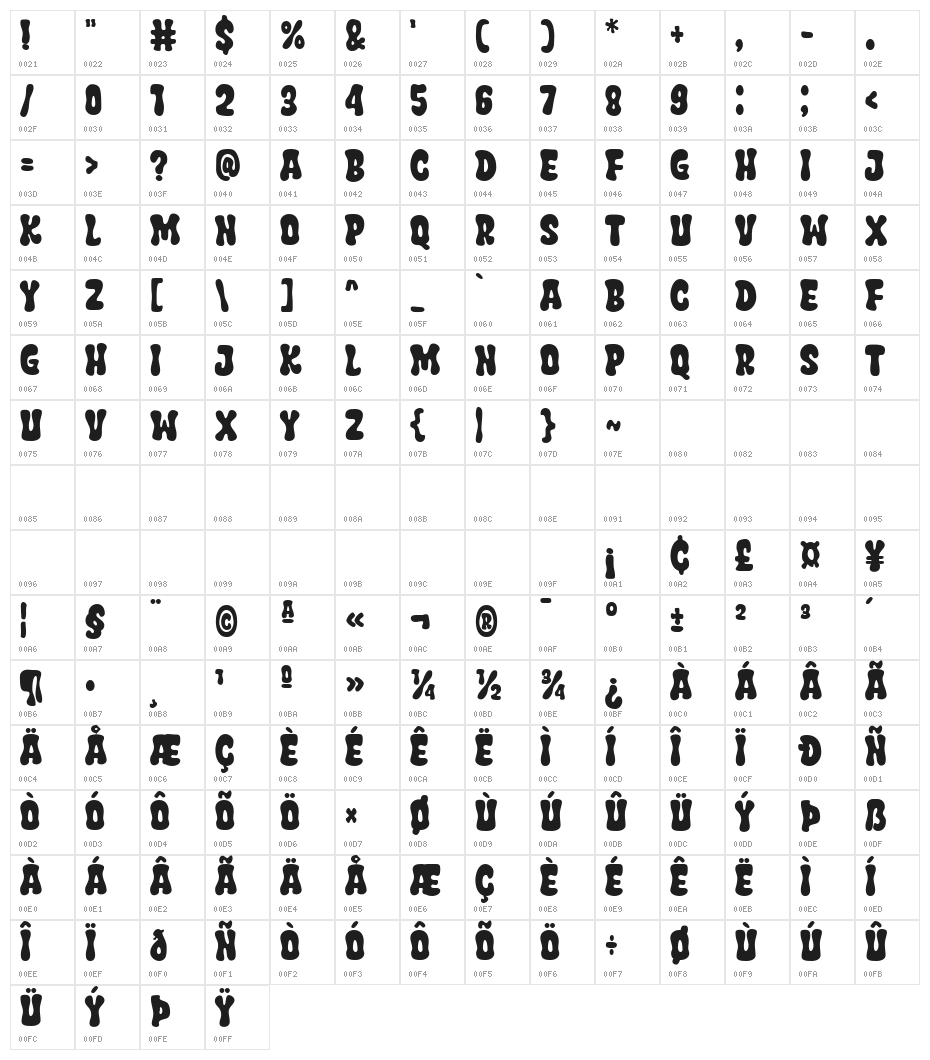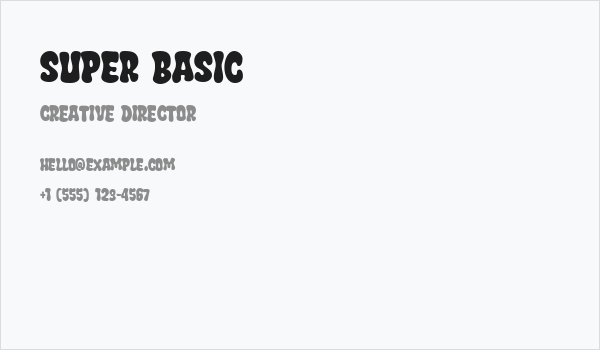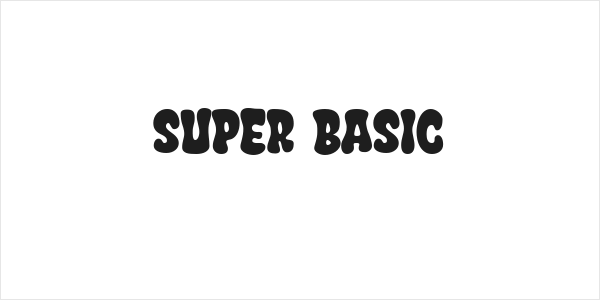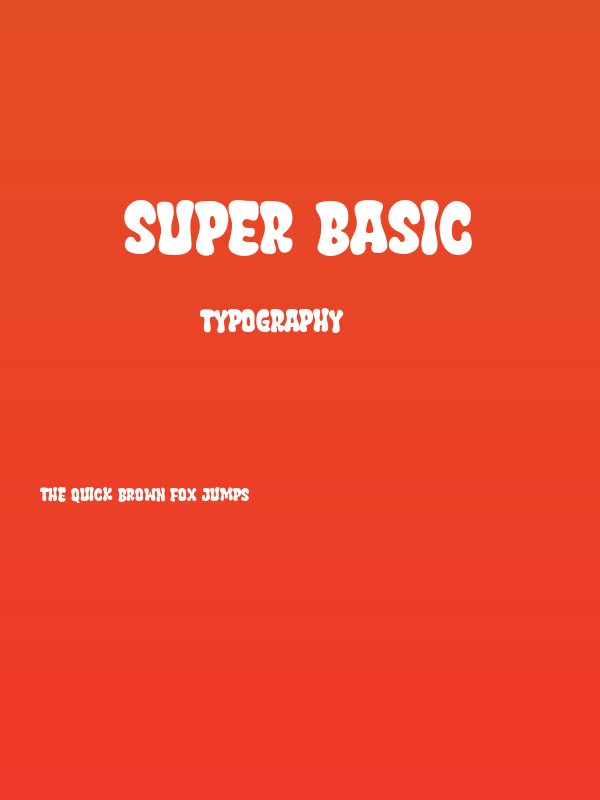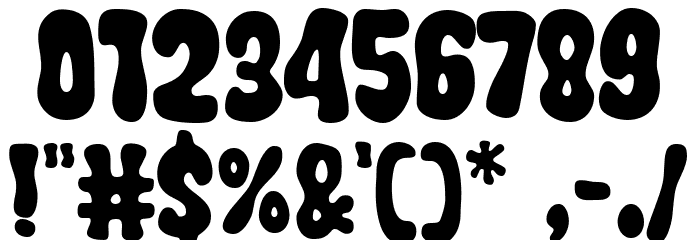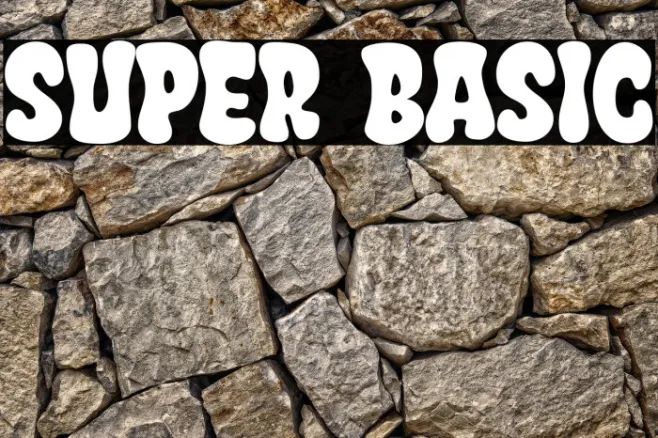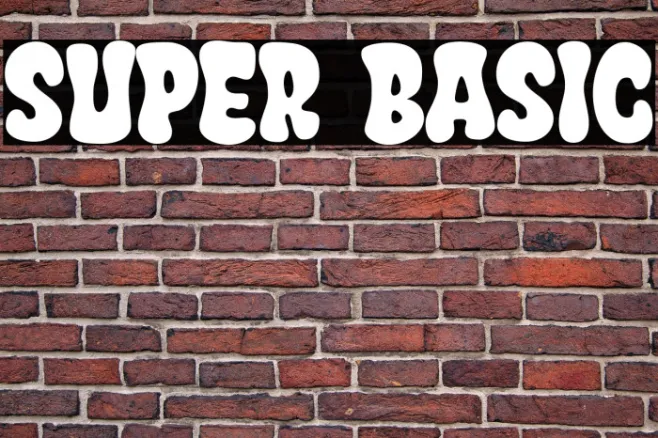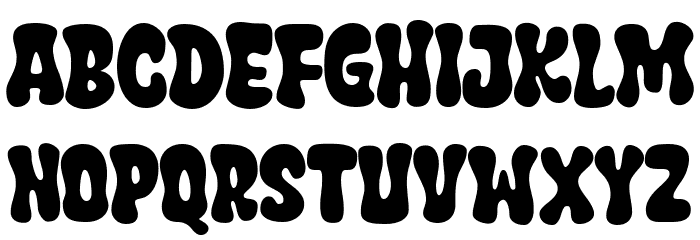
Super Basic Font
Super Basic Description
This font features a playful and bold design with thick, rounded characters that convey a sense of fun and creativity. The letters are uniformly wide, with a bubbly appearance that makes them stand out. The font includes both uppercase and lowercase letters, numerals, and a variety of special characters. Its unique style is characterized by a lack of sharp edges, giving it a soft and approachable look. The consistent thickness of the strokes throughout the characters provides a cohesive and harmonious feel, making it ideal for projects that require a lively and informal touch.
| Proposed Projects | Ideal for children's books, party invitations, playful branding, and creative posters. |